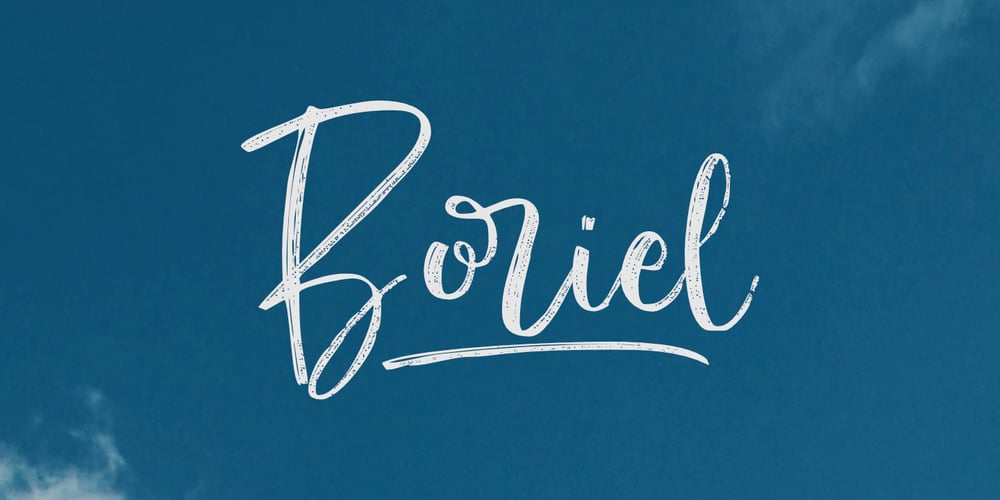
Boriel Font Family was designed by Aldy Sidik, Nurul Hidayani and published by Olivetype. Boriel contains 1 styles and family package options. Boriel is a chic, refined script font that emanates sophistication and elegance. Its stylish alternates and ligatures make this font the perfect match for any projectFeatures : Basic Latin A-Z & a-z. Numbers, symbols, and punctuations Swashes & Ligatures Boriel is supporting 66 Languages: from Afrikaans Albanian Catalan Danish to Dutch English Spanish Swedish Zulu. Accented Characters : ÀÁÂÃÄÅÆÇÈÉÊËÌÍÎÏÑÒÓÔÕÖØŒŠÙÚÛÜŸÝŽàáâãäåæçèéêëìíîïñòóôõöøœšùúûüýÿžß Thank you